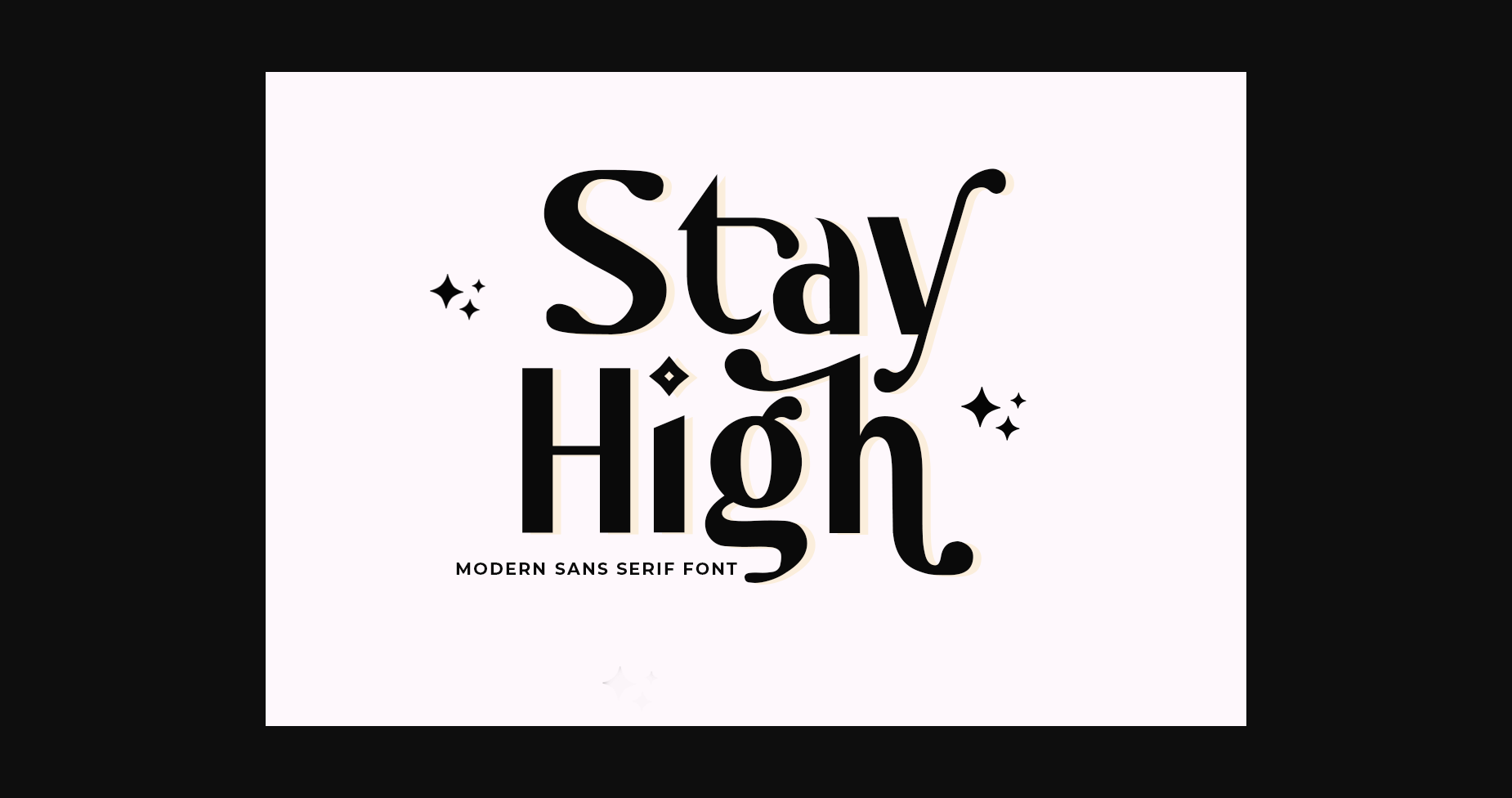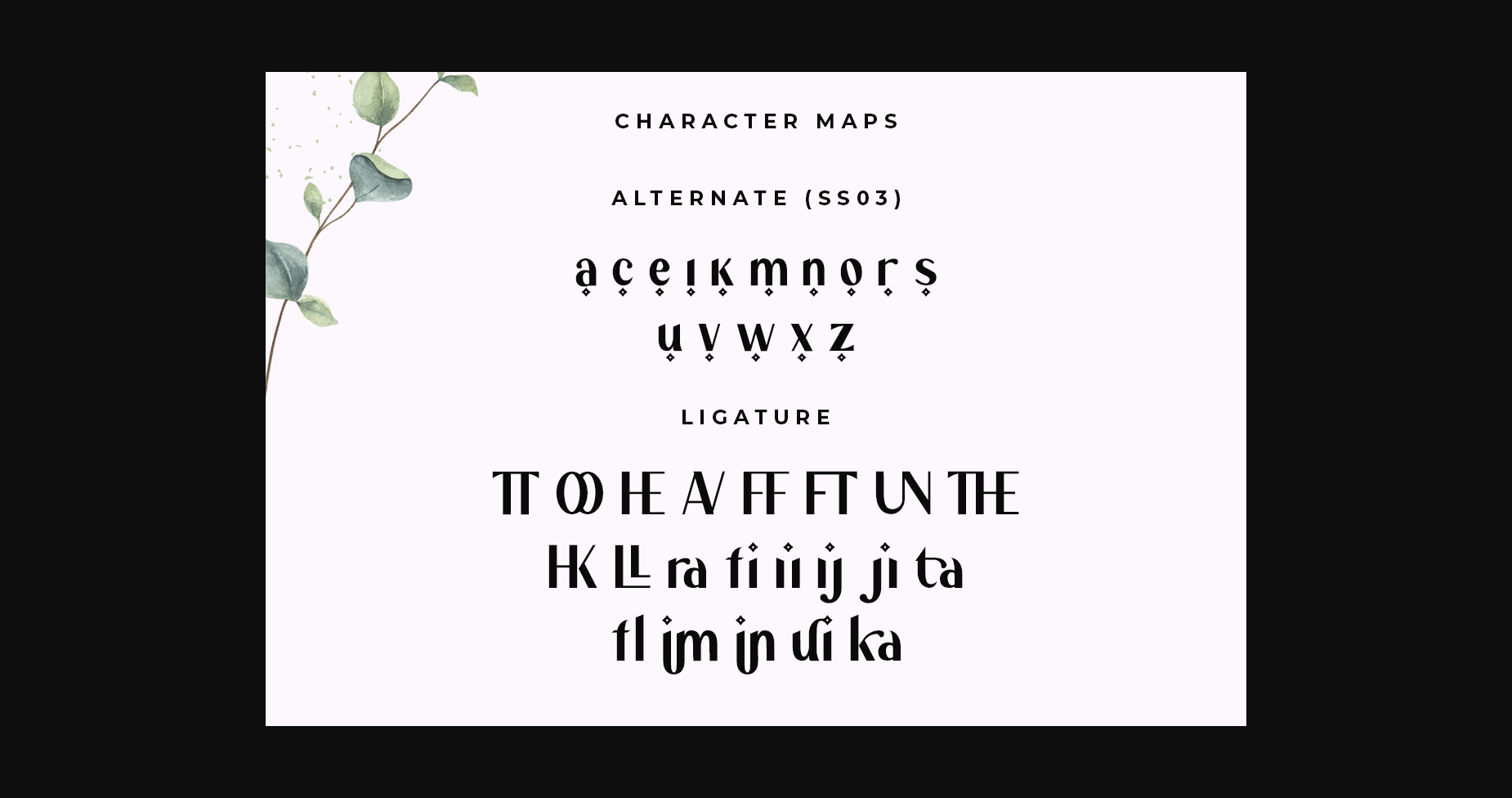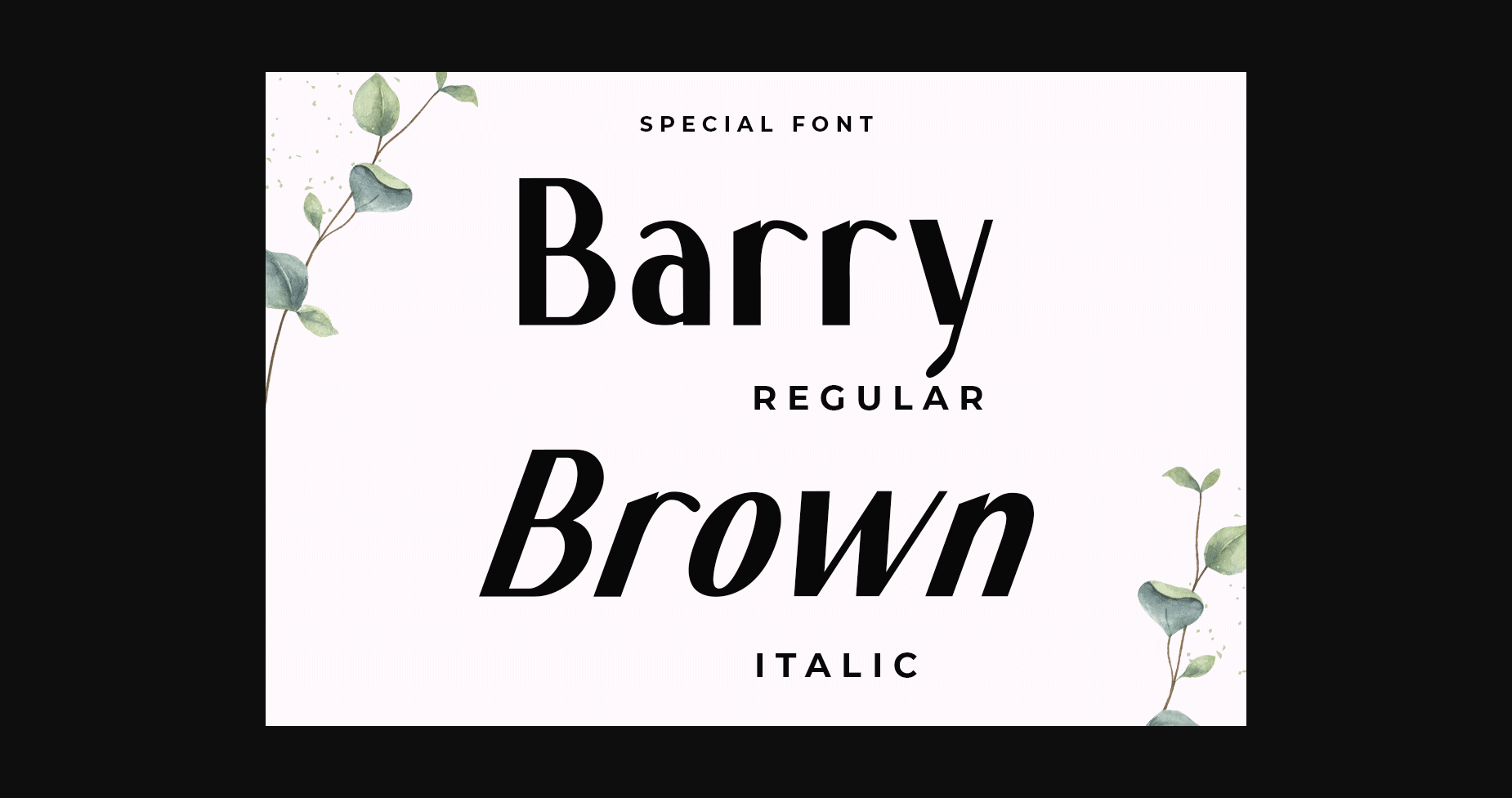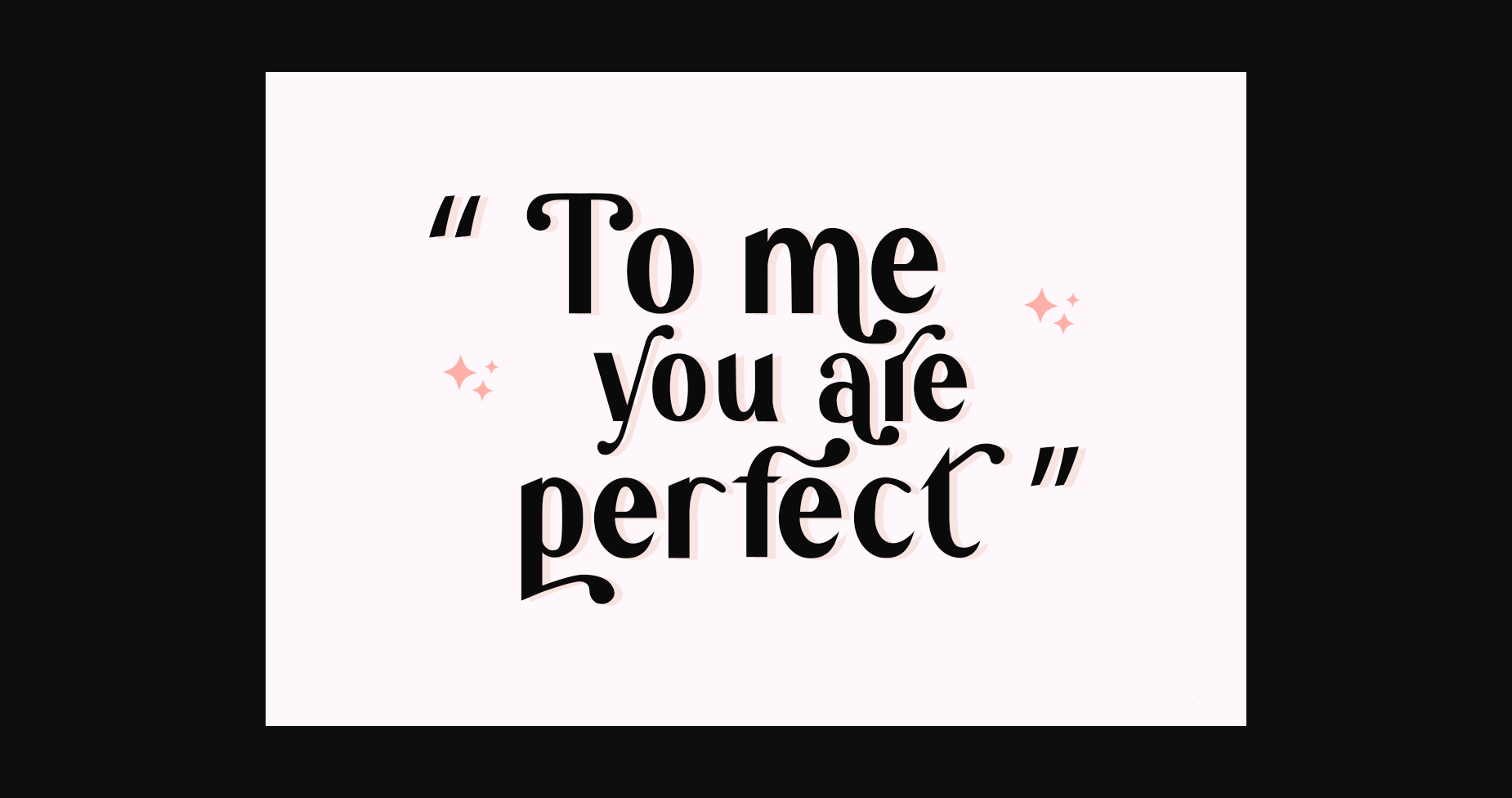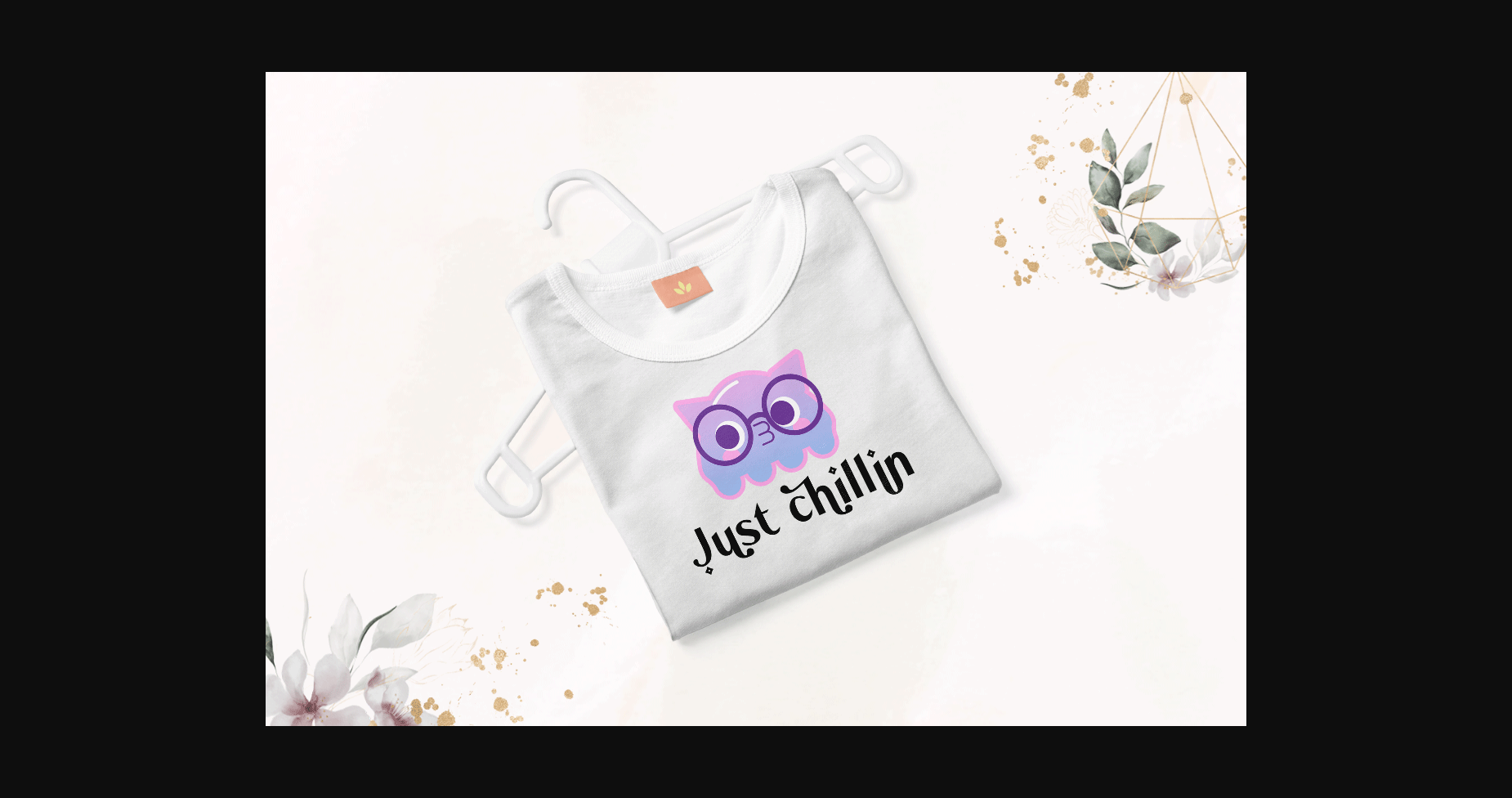
About Stay High Font
Stay High is a styled vintage sans serif font that feels equally charming and delicate. This font is perfectly suited for all quotes, greeting cards, business cards, posters, wedding invitations, logos, cover magazines, t-shirt design material, and much more! Its alternate and ligature look will add a personal and realistic feel to your designs.